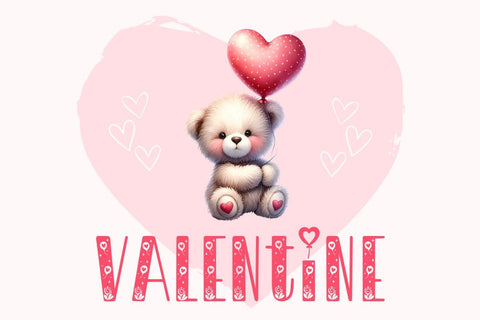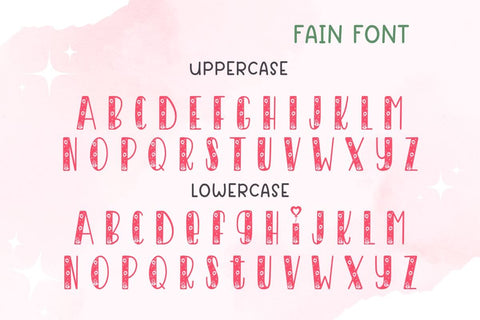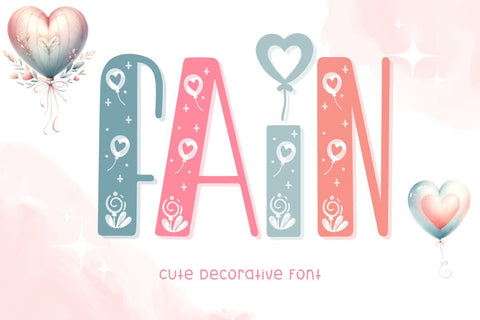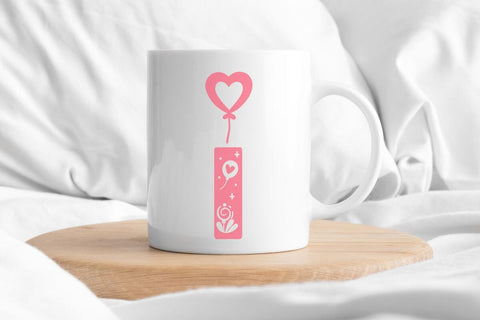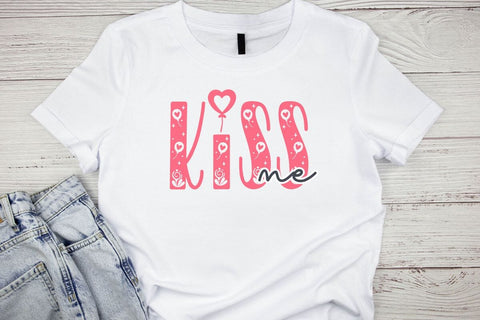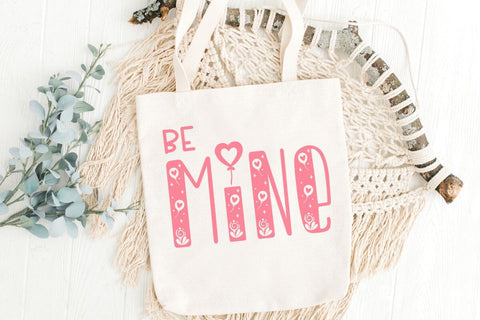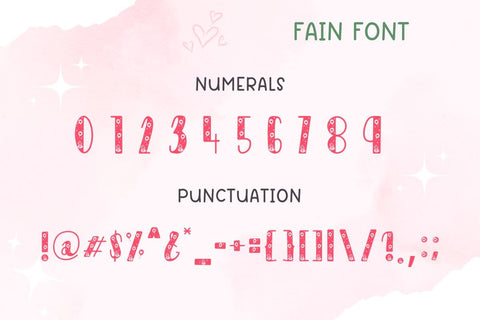
Fain - Cute Decorative Font
Fain is a cute decorative font filled with heart balloons, flowers, and sweet love elements inside each letterform. Perfect for creating Valentine’s Day cards, wedding designs, kids’ crafts, personalized gifts, tote bags, mugs, t-shirts, stickers, and sublimation projects. Fain includes OTF and TTF file formats, plus a bonus set of adorable bear and heart balloon clipart in PNG format to add extra charm to your creative designs.